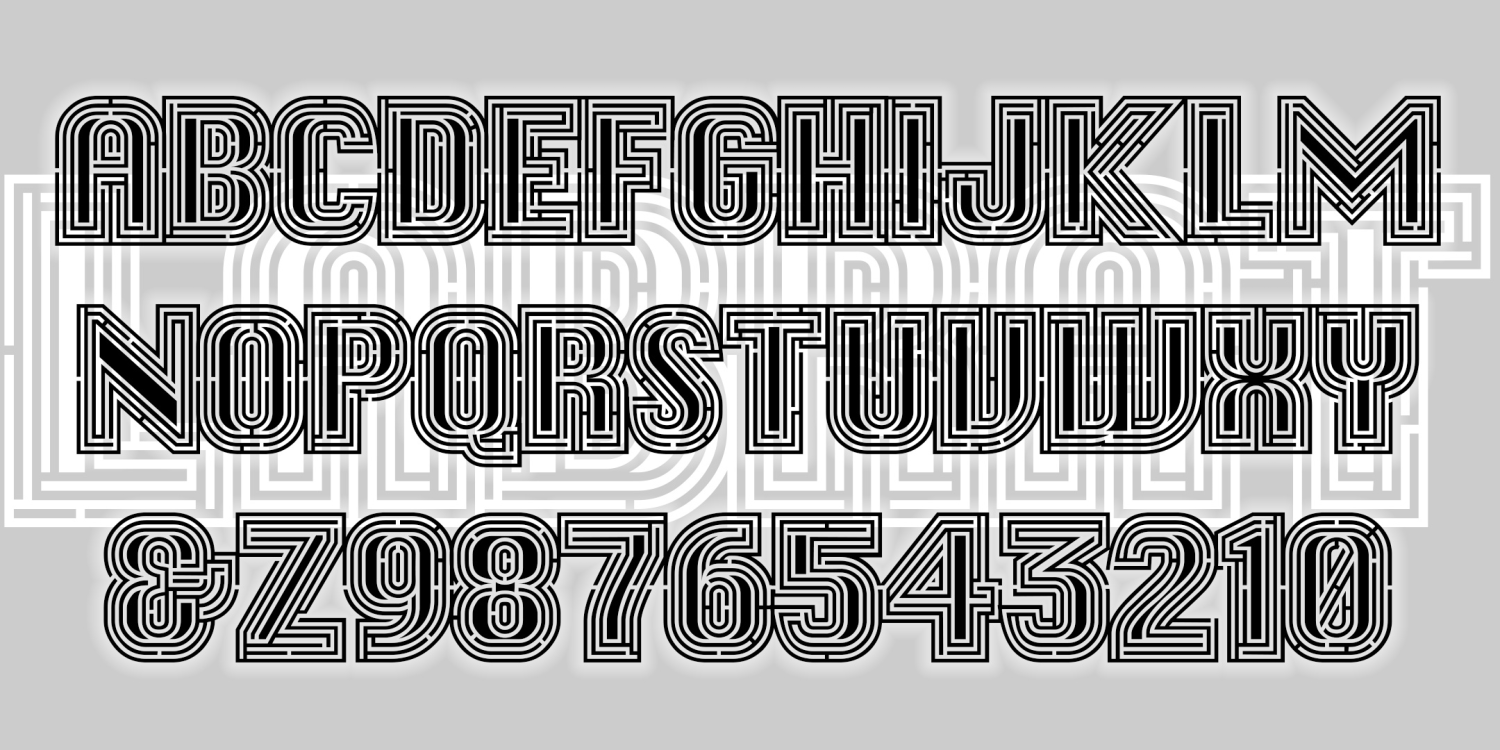
Lab Rat
LAB RAT is a special-effects font designed to create custom working mazes. Make them big so you can traces the paths through each letter and word!
The basic letterforms were inspired by the classic Mac system font, Chicago, designed by Susan Kare.
The Lab Rat font family includes 315 glyphs.